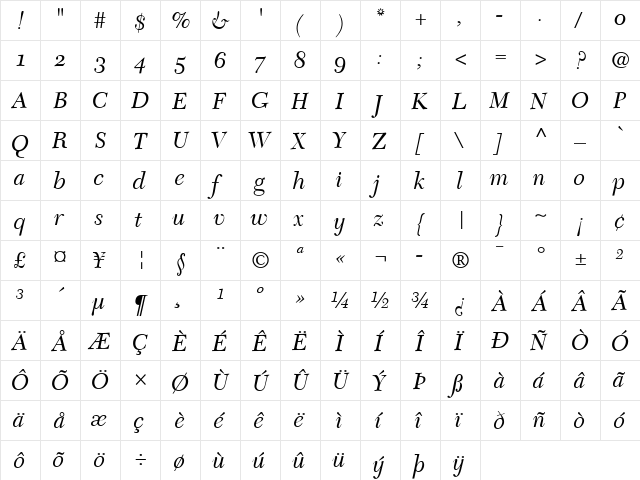
NewCaledonia SC Italic
Design Context for NewCaledonia SC Typeface
NewCaledonia SC is a composed and adaptable typeface that performs quietly and consistently across a wide range of design contexts. Its italic angle brings a sense of urgency and motion to the letterforms.